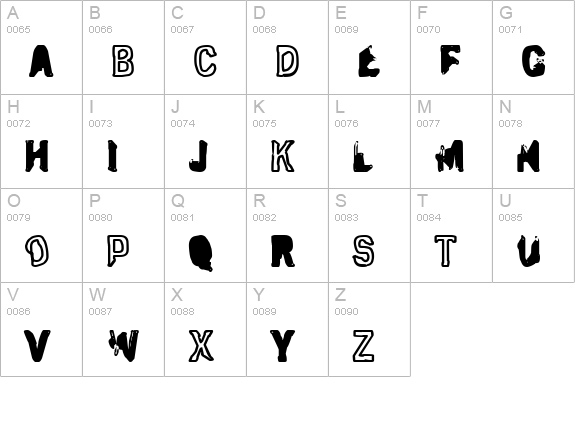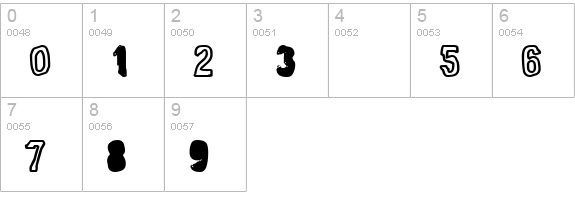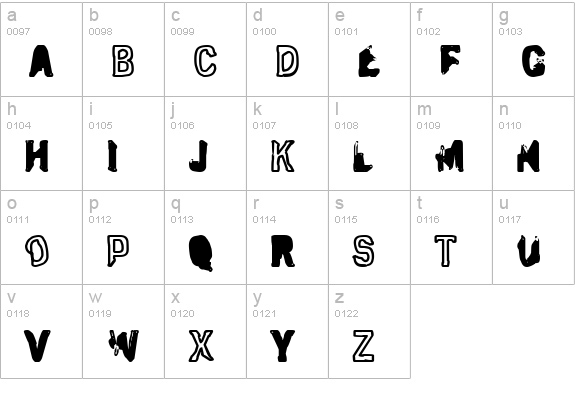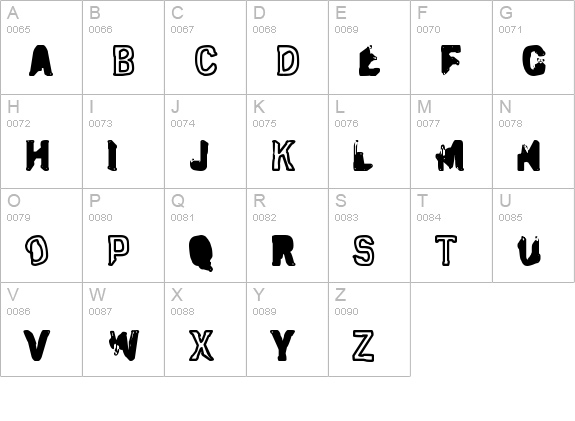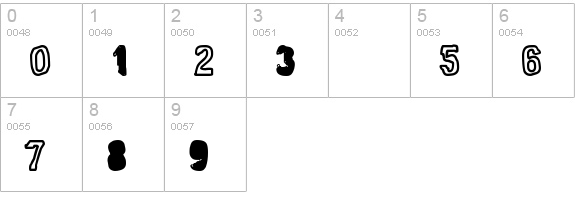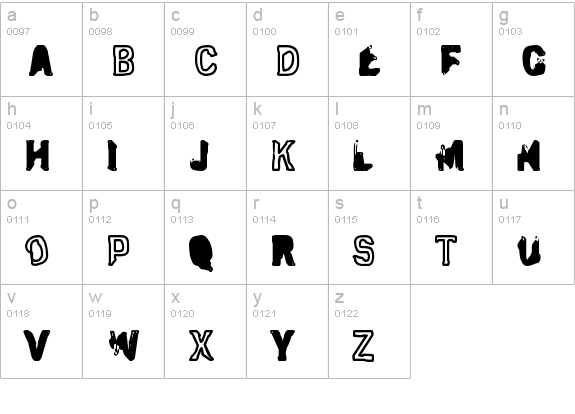
Eclipsed Moon Outline Font Details
Eclipsed Moon Outline font is a captivating and unique typeface that will make your designs stand out from the crowd. With its intricate outlines and mesmerizing curves, this font is perfect for creating eye-catching headlines, logos, posters, and more. What sets Eclipsed Moon Outline font apart is its contemporary and stylish design that combines elegance with a touch of mystery. The intricate details of each letter create a sense of movement, making it truly captivating to the viewer's eye. This font is not only visually appealing but also highly versatile. Whether you're designing for a modern brand, a fashion magazine, or a cutting-edge website, Eclipsed Moon Outline font will add a touch of sophistication and intrigue to your project. One of the best things about Eclipsed Moon Outline font is that it is available for free download at FontsMarket.com. This means that you can enjoy the beauty and versatility of this font without any cost. Simply head over to FontsMarket.com and add this font to your collection. So why wait? Download Eclipsed Moon Outline font today and let its enchanting and captivating design elevate your creative projects to new heights. Whether you're a designer, a marketer, or an artist, this font will bring a touch of magic and elegance to your work. Get ready to leave a lasting impression with Eclipsed Moon Outline font.